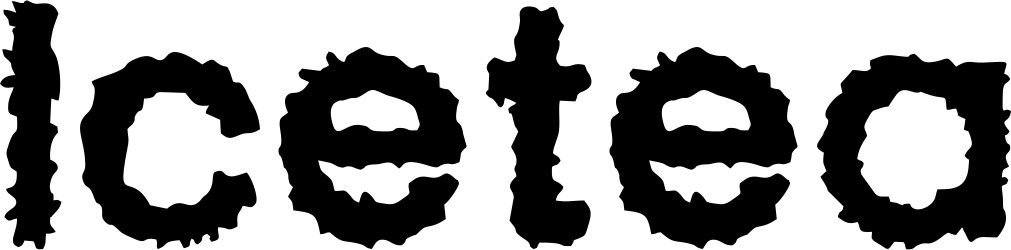
Icetea Font
You need to use a font like Icetea to design a logo or advertising poster for food products such as beverages. This ice font conveys a sense of calm and relief due to its resemblance to natural elements. Using this hand-lettered font in the design of packages and commercial content can greatly increase the efficiency of your graphic work.